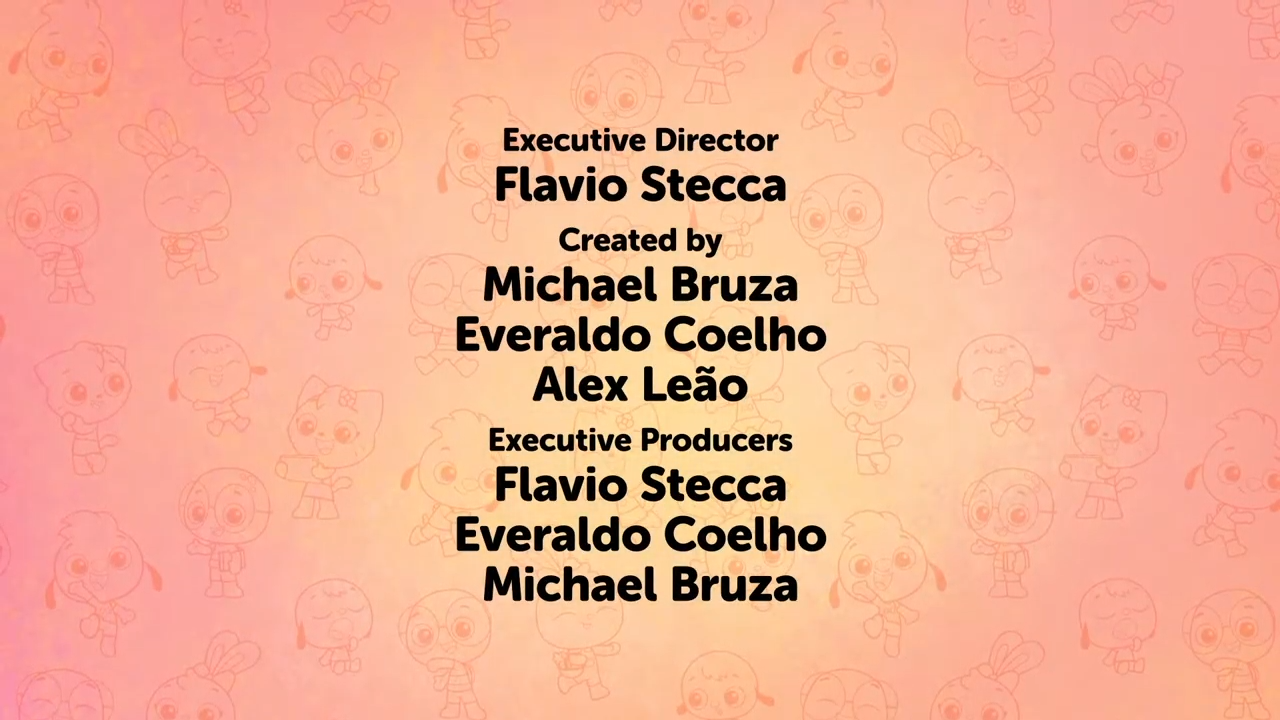
PlayKids - End credits typeface
This sans-serif, rounded-looking font is used in several PlayKids originals. Please, can you help me identify it? And thank you very much! ;-)
Looks like
Museo Sans Rounded
by Jos Buivenga, probably one of the lighter weights …